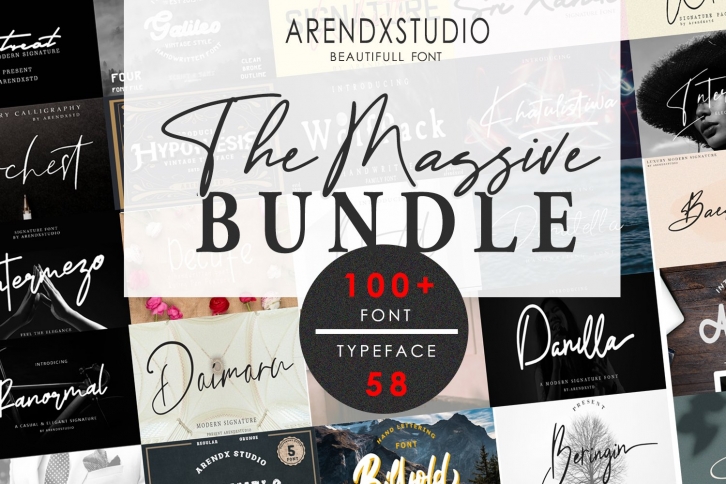
This massive bundle includes 58 Typeface and more 100+ font which will give your designs an elegant touch. These fonts are a perfect fit if you are working on a design that needs an understated but classy look.
Fonts Included In This Bundle:
• Amatir Font • Autisem Font • Activity Font • Baekrajan Font • Baginda Font • Beringin Font • Billfold Font • Biotech Font • Channels Font • Daimaru Font • Dear Nathan Font • Decafe Font • Destiny Font • Dental Font • Donatella Font • Drusella Font • Epidemik Font • Filosofi Font • Galileo Font • Grime Font • Hahsem Font • Hamasa Font • Himalaya Font • Hibernation • Hypothesis Font • Hunterman Font • Hustle Faster Font • Intermezo Font • Intervensi Font • Khatulistiwa Font • La Vi En Rose Font • Maristella Font • Ministry Font • Navigate Font • Naylah Font • Nirwana Font • North Little Font • Odetta Font • Orchest Font • Quenzalli Font • Qibtiyah Font • Ranormal Font • Rellive Font • Retreat Font • Sabella Font • Strala Be Nice Font • Silverstone Font • Sinestesia Font • Sleeping Wild Font • Srikandi Font • Thalib Font • Tristyn Font • Untitled Artwork Font • Violitta Font • Whistle Font • Whitley Font • Wolfpack Font